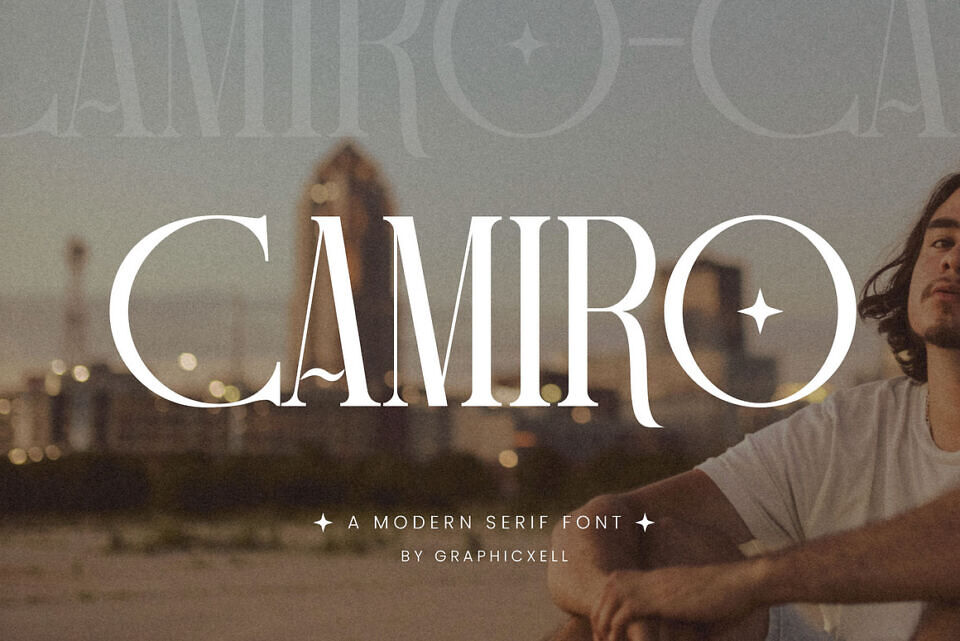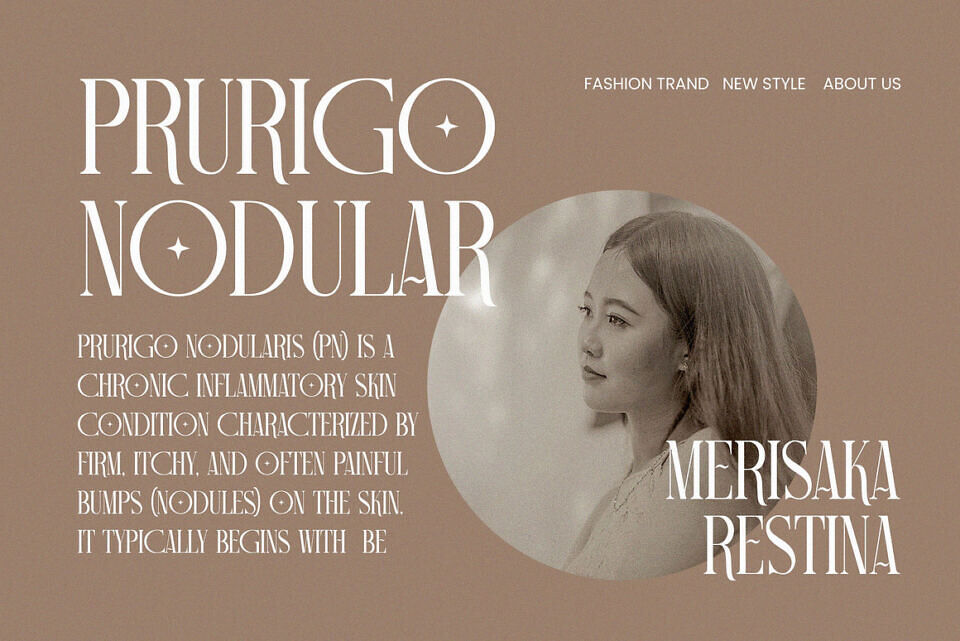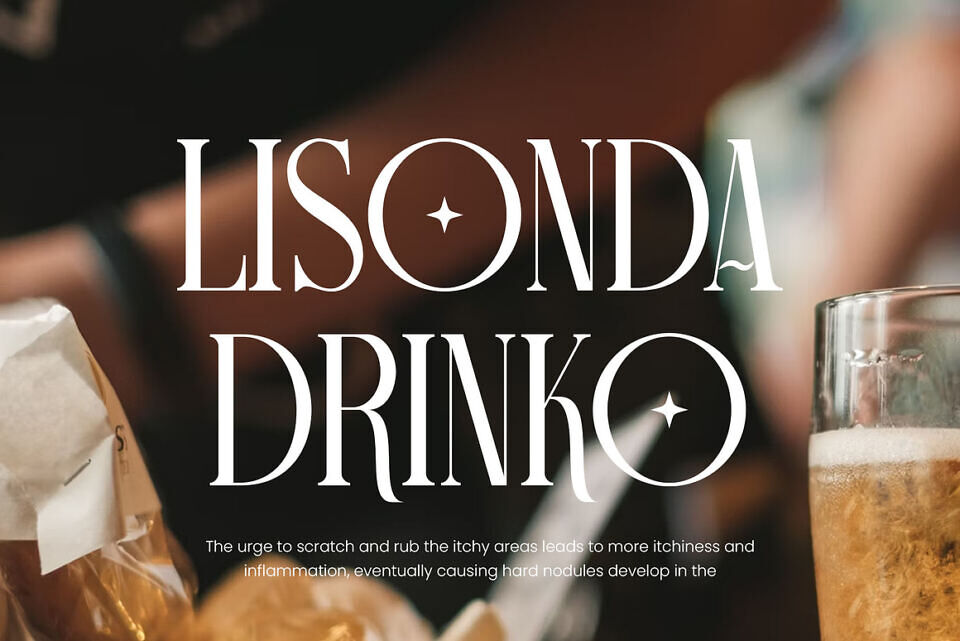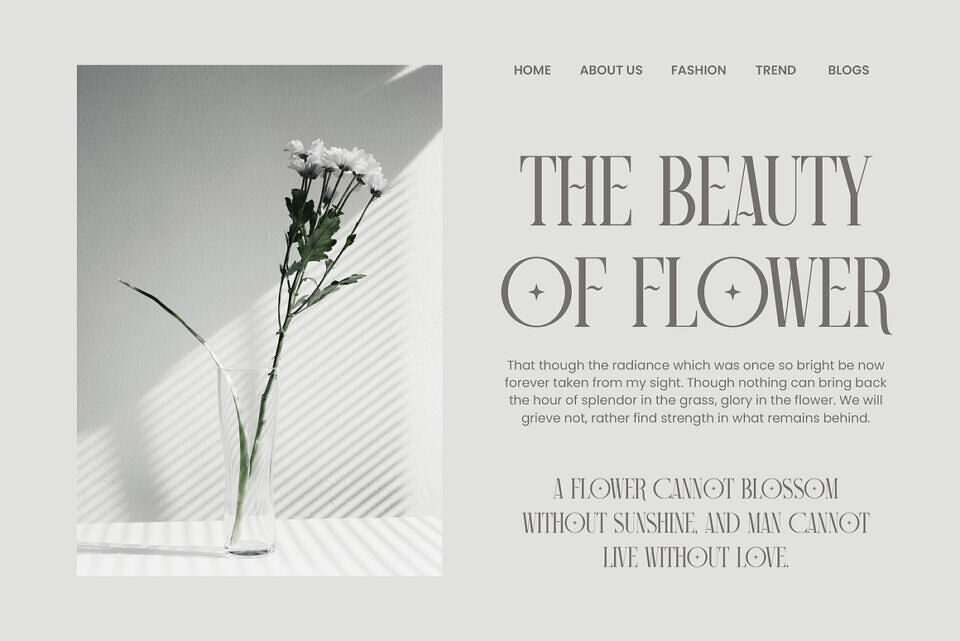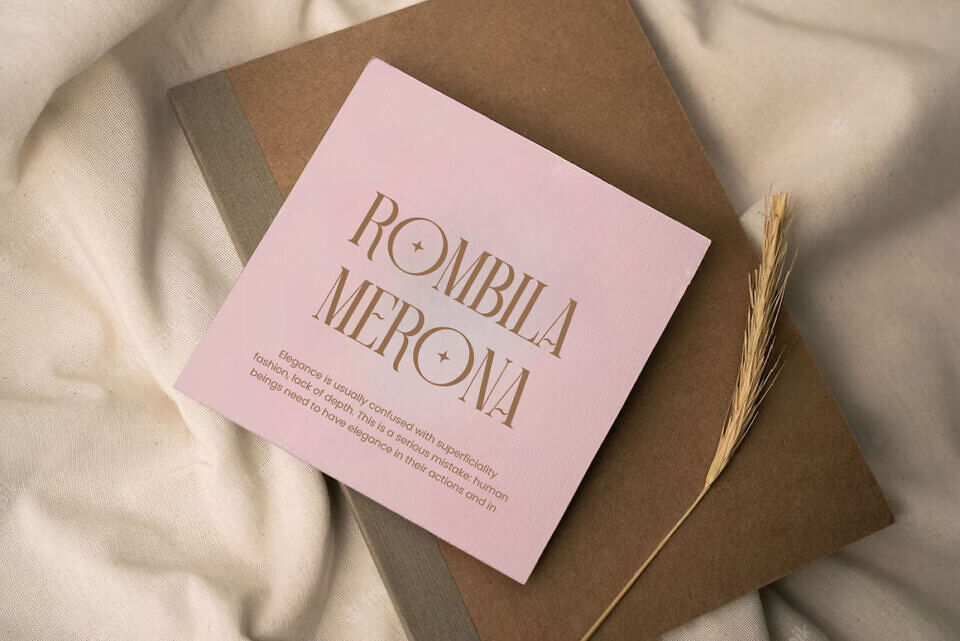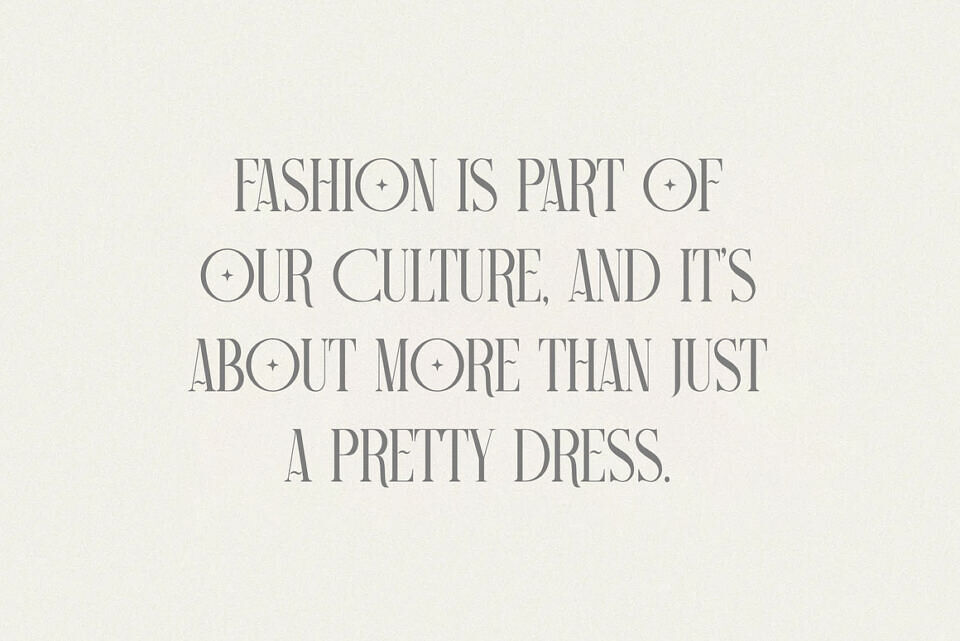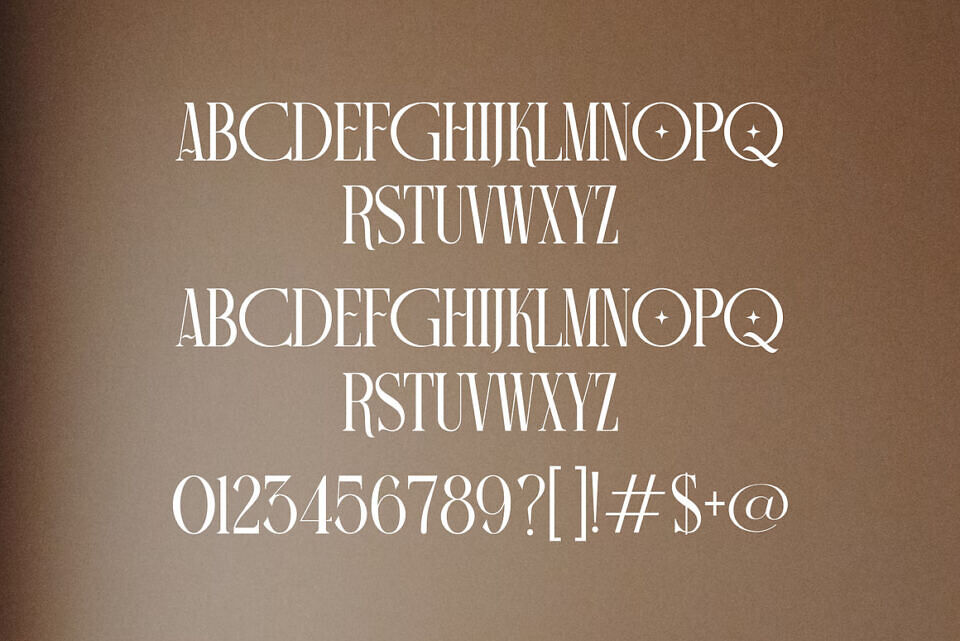
Camiro Font
Camiro is a unique and very elegant font for branding and logo designs. This Elegant serif typeface is combined with a classy and modern style.
Camiro Font is very suitable for your various needs such as branding projects, logos, wedding designs, social media posts, advertisements, product packaging, product designs, labels, photography, watermarks, invitations, stationery, and any project, created with high level of readability.